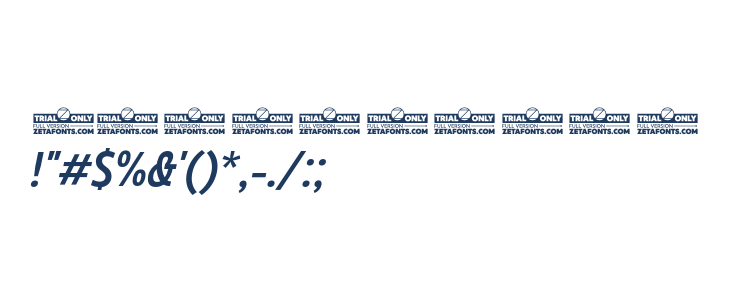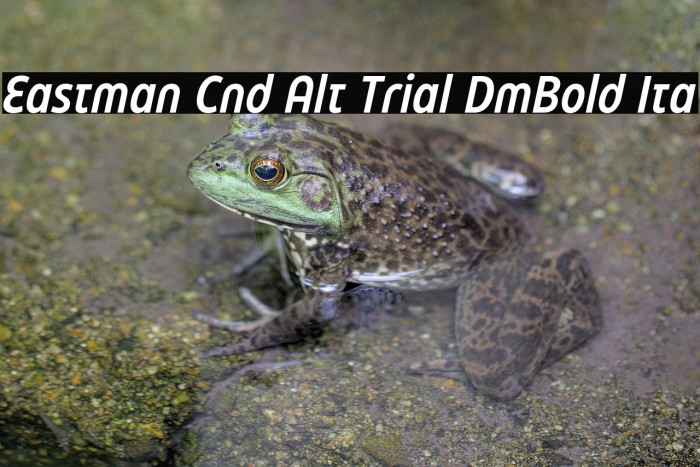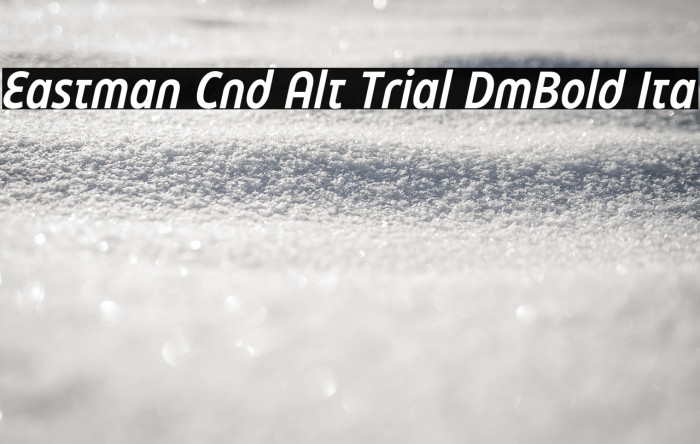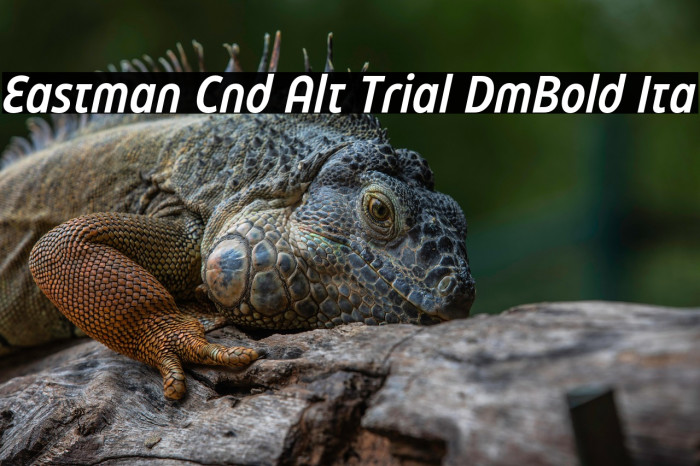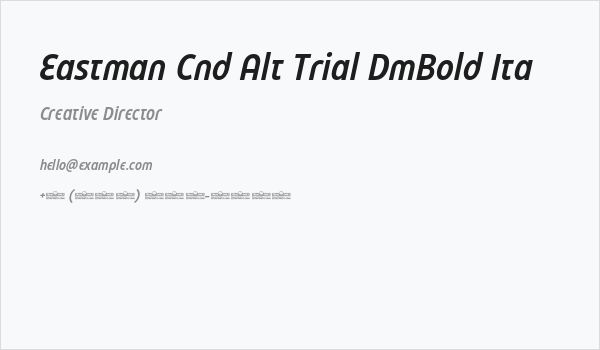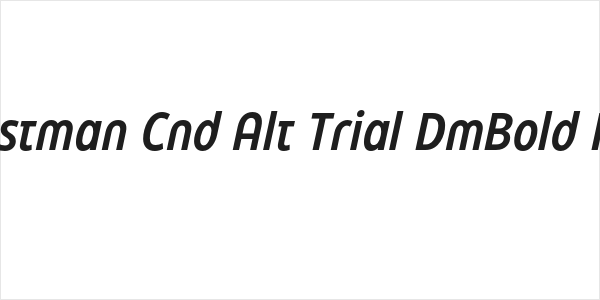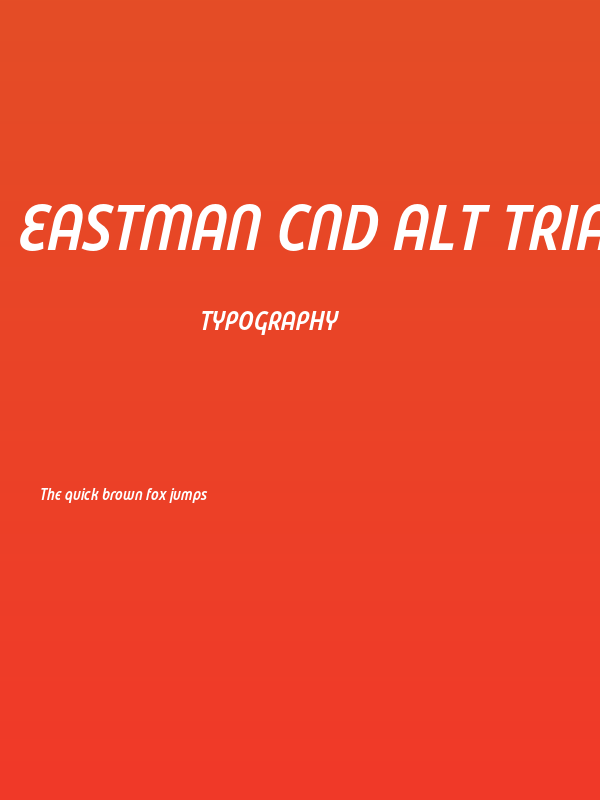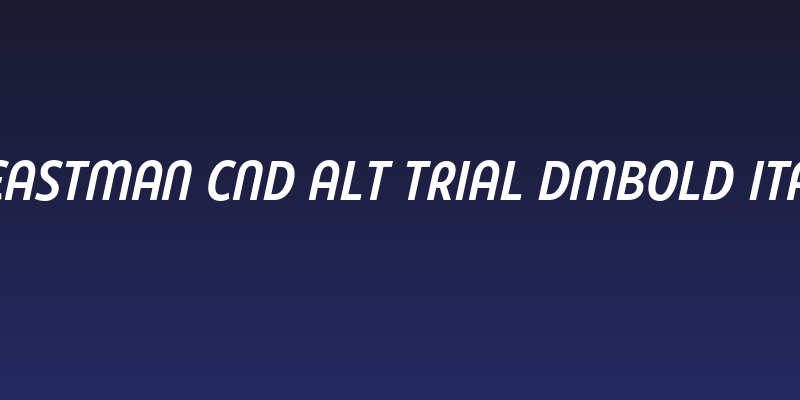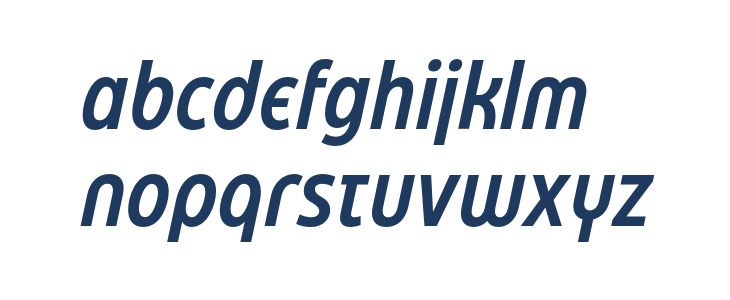
Eastman Cnd Alt Trial DmBold Ita Font
Eastman Cnd Alt Trial DmBold Ita Description
This font features a modern, condensed style with a dynamic italic slant, giving it a sense of movement and energy. The characters are bold and slightly rounded, providing a friendly yet professional appearance. The uppercase and lowercase letters maintain a consistent style, with smooth curves and clean lines. The numerals and special characters are designed to match the overall aesthetic, ensuring uniformity across all text elements. This font is versatile, suitable for various design projects that require a contemporary and engaging look.
Use CaseHeadlines, Logos, Advertising
Proposed ProjectsIdeal for branding, advertising, posters, and digital media where a modern and dynamic appearance is desired.